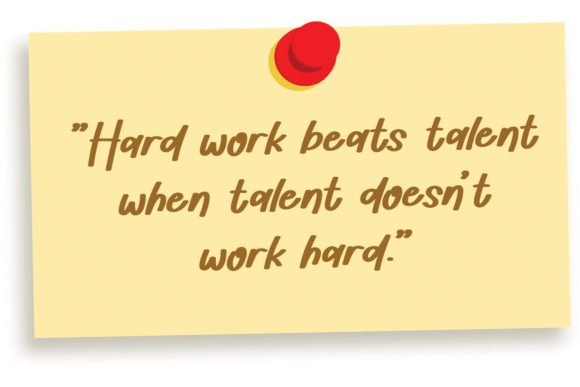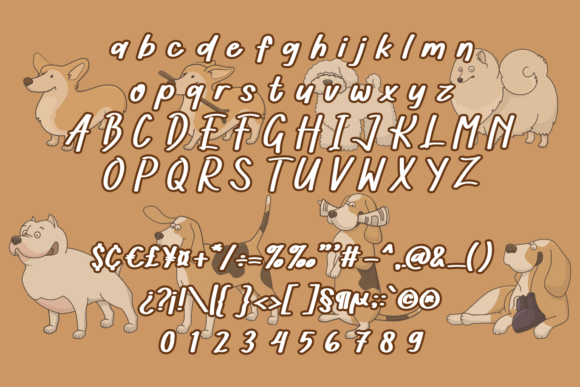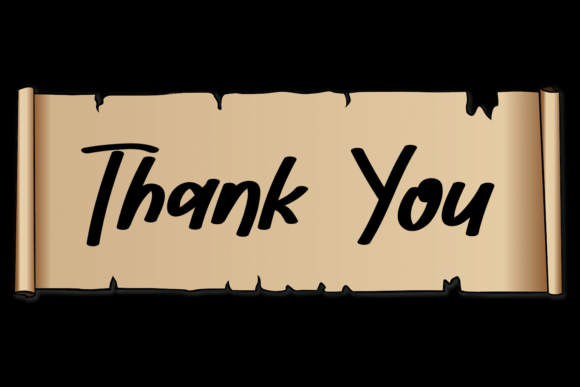
Introducing Awesome Font: Elevate Your Designs with Elegance and Sophistication
In the world of design, typography plays a crucial role in conveying the message and aesthetic of a brand or project. A beautiful and refined font can make all the difference in creating a lasting impression. This is where Awesome Font comes in – a stunning handwritten font that embodies class, modernity, and versatility. In this article, we’ll explore the features and benefits of Awesome Font, and how it can elevate your designs to new heights.
What Makes Awesome Font So Special?
Awesome Font is a meticulously crafted handwritten font that exudes elegance and sophistication. Its refined strokes and beautiful letterforms make it perfect for a wide range of design applications, from logos and branding to invitations, stationery, and wedding designs. The font’s modern and classy feel ensures that your designs will stand out from the crowd and leave a lasting impression on your audience.
Key Features of Awesome Font
- Handwritten with love: Awesome Font is carefully crafted with attention to detail, ensuring a natural and fluid look that mimics handwritten text.
- Classy and modern: The font’s sleek and refined design makes it perfect for modern designs that require a touch of sophistication.
- Versatile: Awesome Font can be used for a wide range of design applications, including logos, branding, invitations, stationery, wedding designs, social media posts, and more.
- Easy to read: The font’s clear and legible design ensures that your text is easy to read, even at small sizes.
Use Cases for Awesome Font
Awesome Font is an incredibly versatile font that can be used in various design projects. Here are some use cases to get you started:
- Logos and branding: Create a lasting impression with a custom logo or brand identity that showcases your unique style.
- Invitations and stationery: Add a touch of elegance to your invitations, greeting cards, and stationery with Awesome Font.
- Wedding designs: Make your wedding designs truly special with a beautiful and refined font that sets the tone for your big day.
- Social media posts: Elevate your social media presence with eye-catching graphics and typography that showcases your brand’s personality.
Why Choose Awesome Font?
With so many fonts available, why choose Awesome Font? Here are just a few reasons why designers and crafters love this beautiful font:
- Unique and distinctive: Awesome Font stands out from the crowd with its unique and refined design.
- High-quality: The font is carefully crafted with attention to detail, ensuring a high-quality design that will elevate your projects.
Awesome Font is a beautiful and refined handwritten font that offers a world of creative possibilities. With its classy and modern design, versatility, and ease of use, it’s the perfect choice for designers and crafters looking to elevate their designs. Whether you’re creating logos, branding, invitations, stationery, wedding designs, or social media posts, Awesome Font is sure to impress. So why wait? Discover the power of Awesome Font and take your designs to new heights!